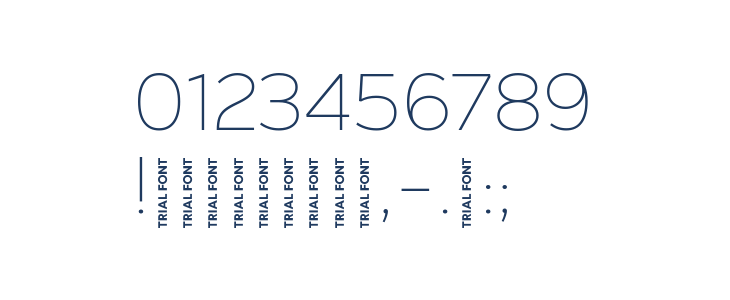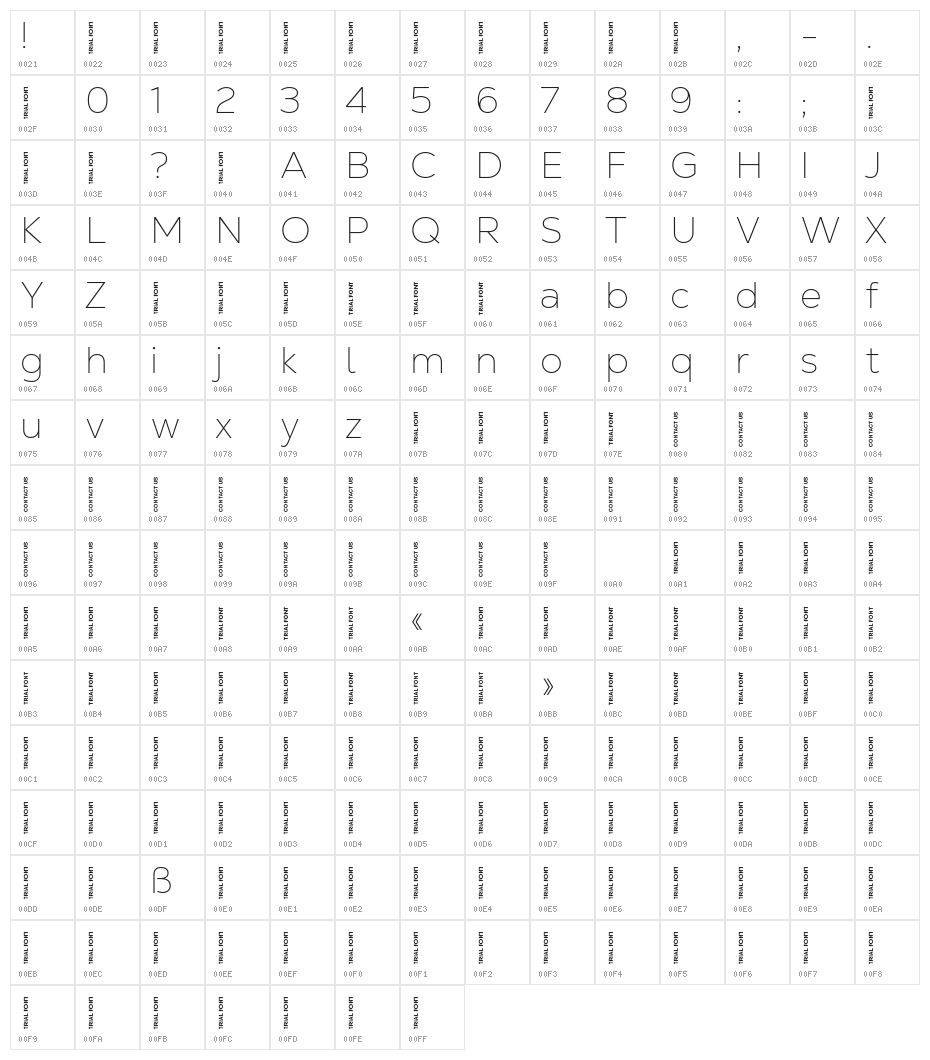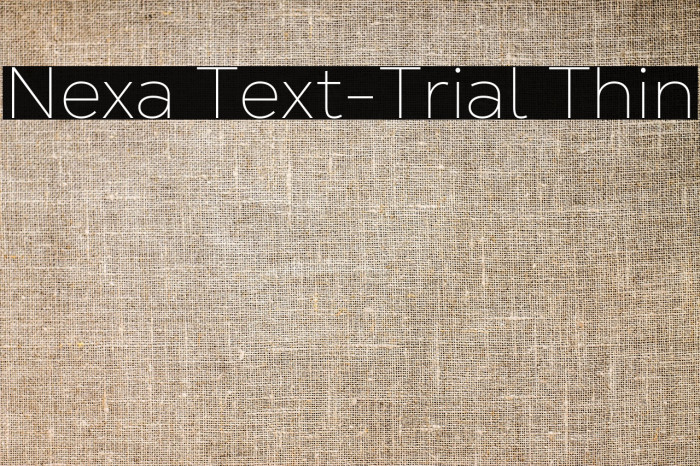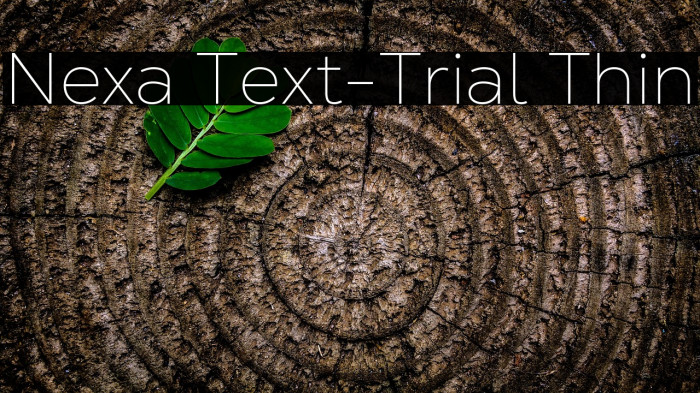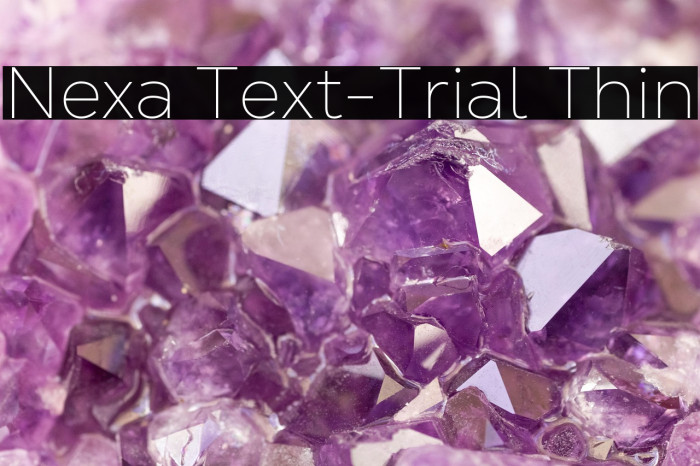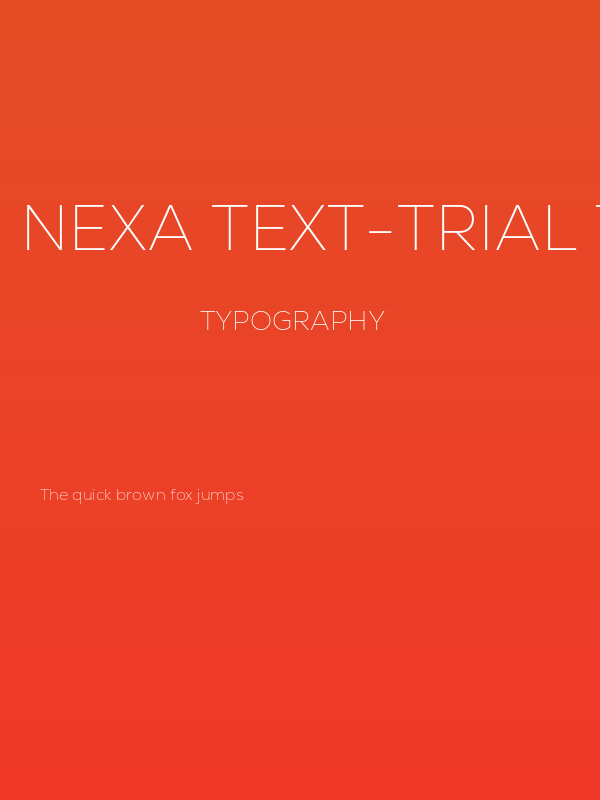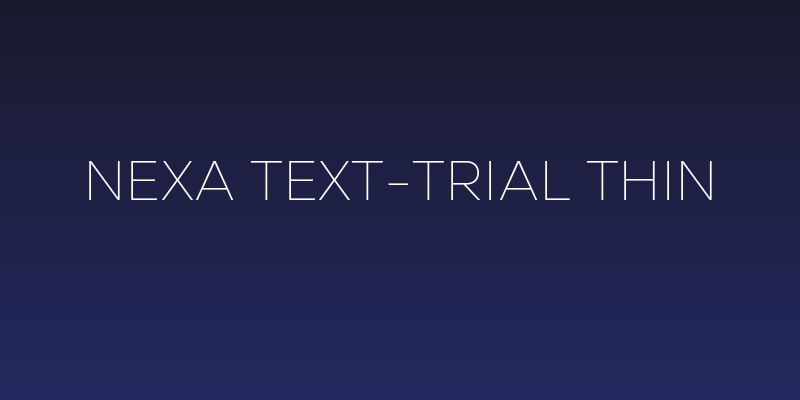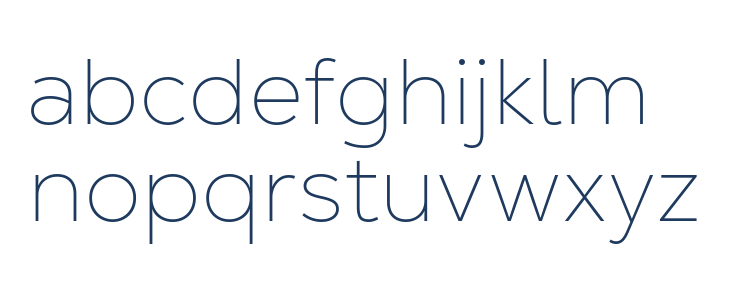
Nexa Text-Trial Thin Font
Nexa Text-Trial Thin Description
This font features a clean, geometric sans-serif style with thin, uniform strokes that convey a modern and minimalist aesthetic. The characters are well-balanced with a consistent height and width, providing a harmonious appearance. The uppercase letters maintain a strong presence, while the lowercase letters offer a softer, more approachable look. The numerals are clear and legible, making them suitable for various applications. Special characters are included, maintaining the overall sleek design. The font's simplicity and elegance make it versatile for both digital and print media.
| Proposed Projects | Ideal for branding, web design, editorial layouts, and minimalist posters. |